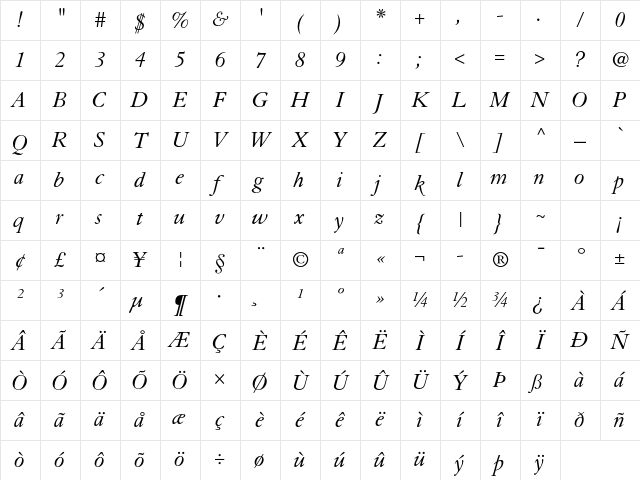
Granjon LT Std Italic
Designer: George W. Jones
Design Context for Granjon LT Std
Granjon LT Std is a composed and adaptable typeface that performs quietly and consistently across a wide range of design contexts. The slanted form adds forward momentum and visual energy. Its slender proportions lend an understated elegance to any composition.
Pro Tip: Use Granjon LT Std for emphasis, pull quotes, and subheadings where its slanted energy can add rhythm to the layout.